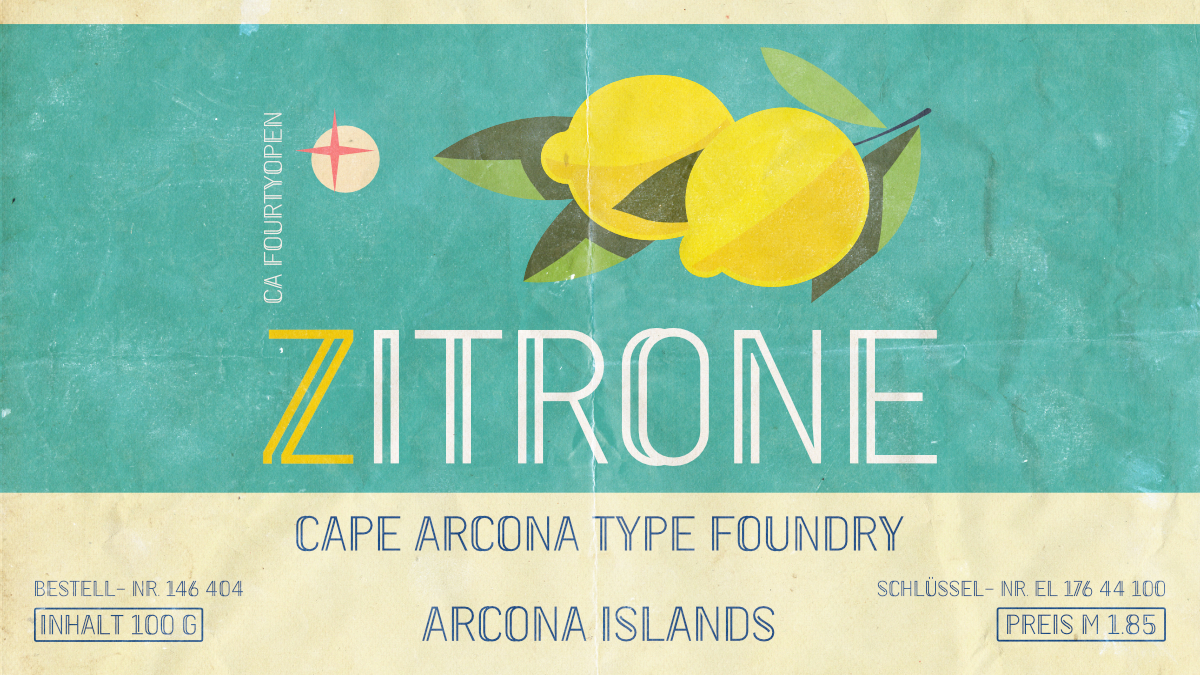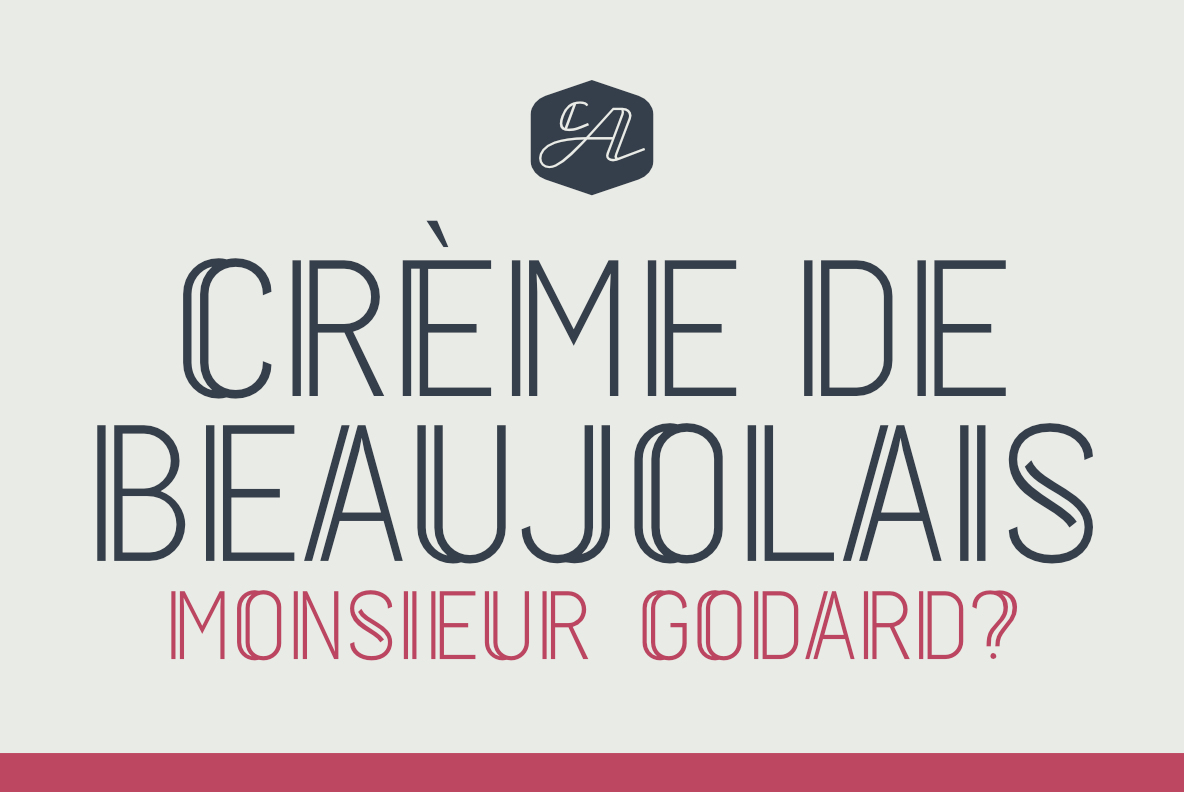
CA Forty Open got its name the honest way – it was the 40th attempt to get this neon-sign style right. The double outline gives it a strong, distinctive look that works especially well for headlines.
It started from the same base as CA BND, so the two pair nicely together. It also works well alongside our double-lined script CA Capoli.
Even though it's an all-caps font, the uppercase and lowercase characters aren't identical – the uppercase letters are a bit more open. The whole family comes with a Central European character set. Tchin-tchin.